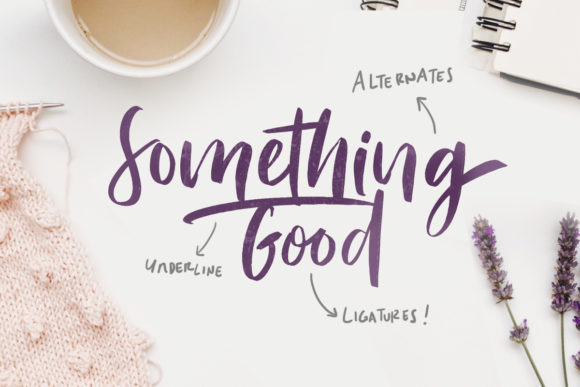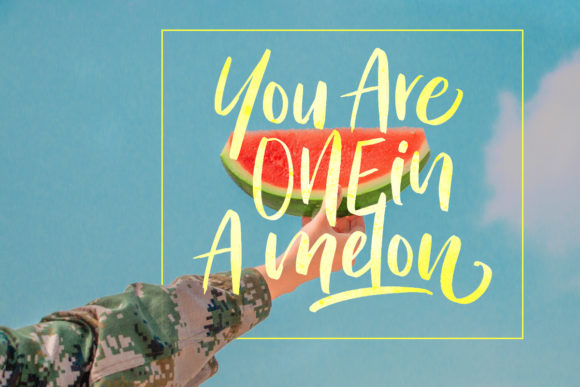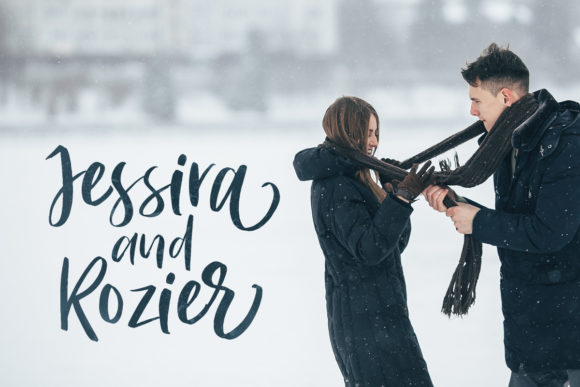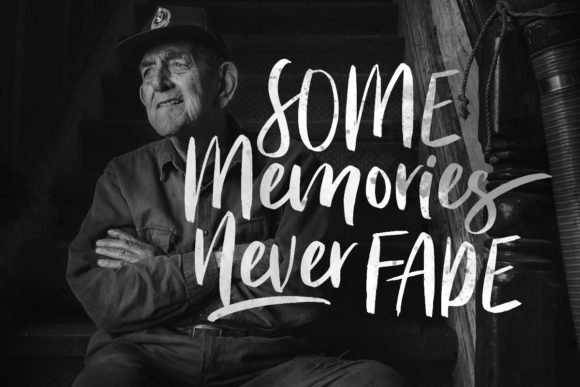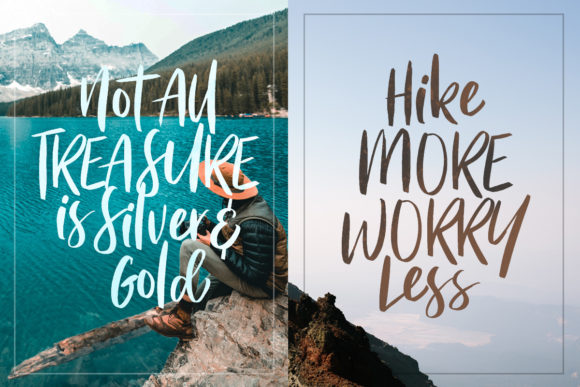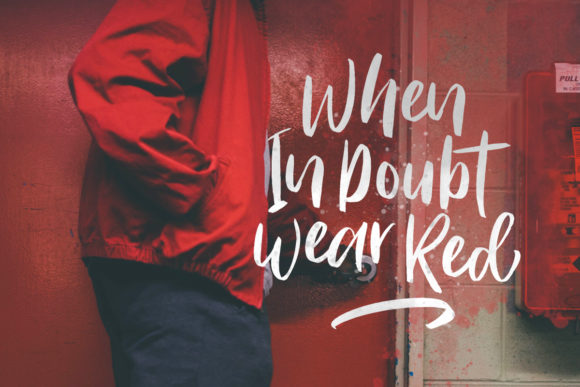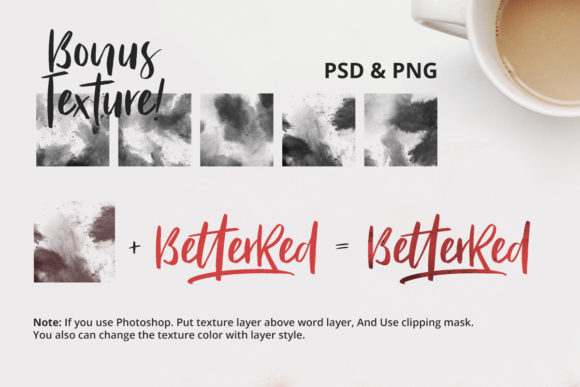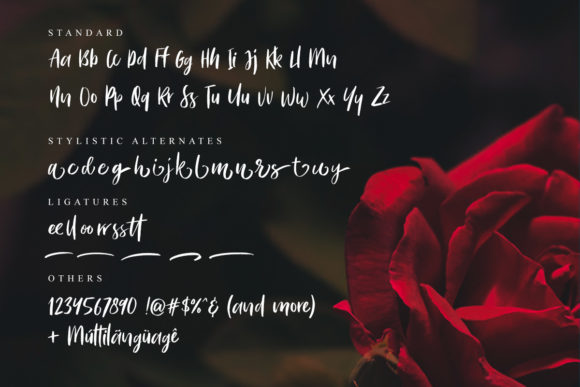
Bitter Rose Font
About Bitter Rose Font
The Bitter Rose is a striking script. It has bold letters with a great readability which can be used for every design which needs an unique look.
Included as a bonus are beautiful textures to spice up your designs.